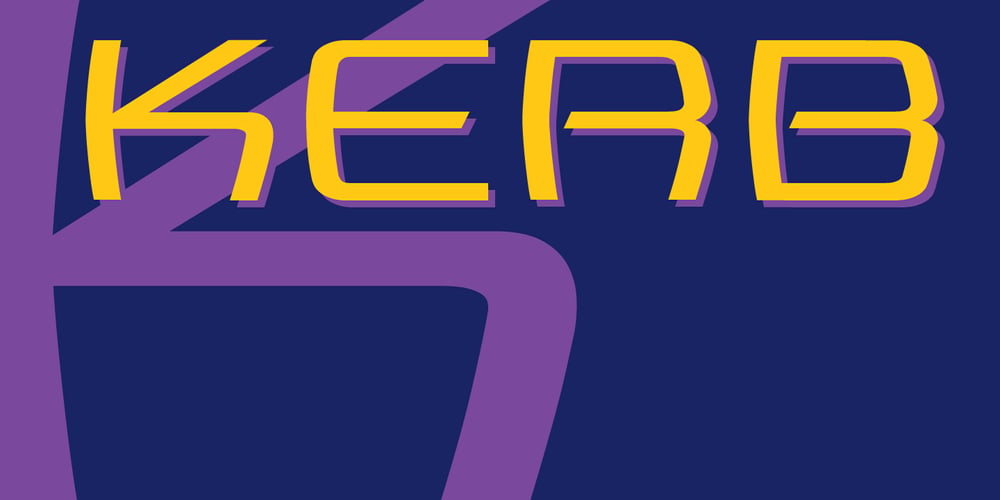
Kerb
Kerb font
Kerb Font Family was designed by James A. Lebbad and published by Lebbad Design. Kerb contains 1 styles and family package options. Kerb is a contemporary sans serif font created with wide letterforms and subtle bowed vertical strokes. Fantastic font for logotype and headline use.